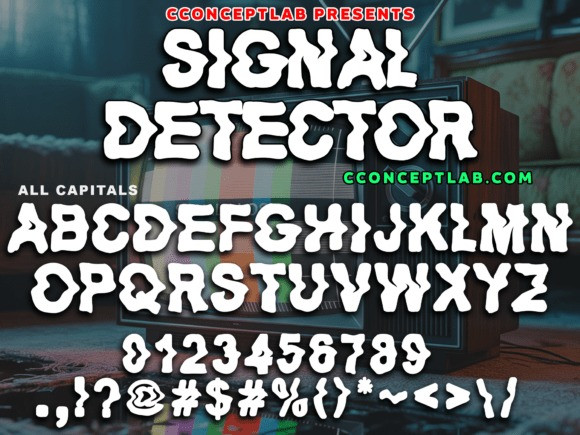
Signal Detector Font
Signal Detector Font is a strong, impactful stencil bold font built for visible and display design. With a distorted effect on each character, it’s perfect for military themes, tactical branding, survival gear, bold statement posters, or merchandise with a twist of unique disruptive effects.